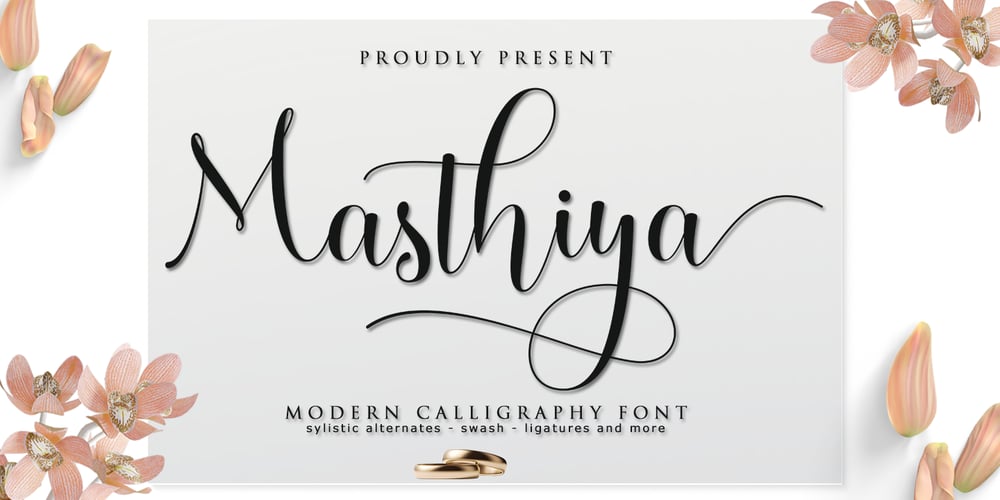
Masthiya Script
Masthiya Script font
Masthiya Script Font Family was designed by Zaki Muhammad and published by madjack.font. Masthiya Script contains 1 styles and family package options. Masthiya Script is a modern calligraphy design including Regular. This font is casual and pretty with swashes. Can be used for various purposes. such as logos, product packaging, wedding invitations, branding, headlines, signage, labels, signatures, book covers, posters, quotes, and others.Masthiya Script includes changes in OpenType style, binding and international support for most Western languages. To activate the OpenType Stylistic alternative, you need a program that supports OpenType features such as Adobe Illustrator CS, Adobe Indesign & CorelDraw X6-X7, Microsoft Word 2010 or a later version. How to access all alternative characters using Adobe Illustrator:https://www.youtube.com/watch?v=XzwjMkbB-wQThe Masthiya Script is coded with PUA Unicode, which allows full access to all additional characters without having to design any special software. Mac users can use Font Book, and Windows users can use Character Map to view and copy any of the additional characters to paste into your favorite text editor / application. How to access all alternative characters, using the Windows Character Map with Photoshop:https://www.youtube.com/watch?v=Go9vacoYmBwIf you need help or have any questions, let me know. I’m happy to help 🙂 Thanks & Congratulations on Design!